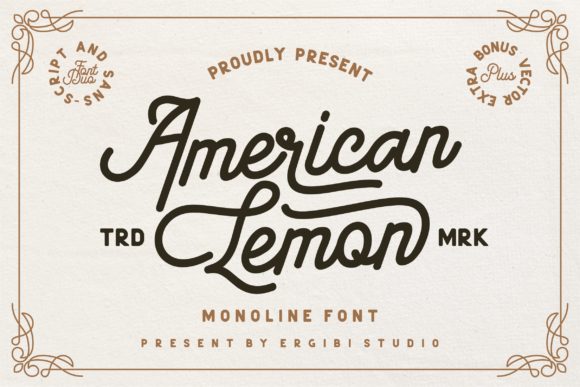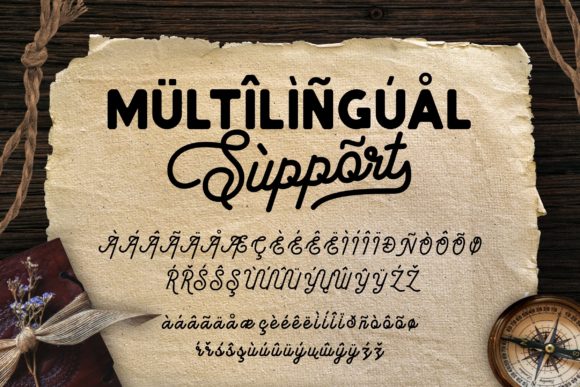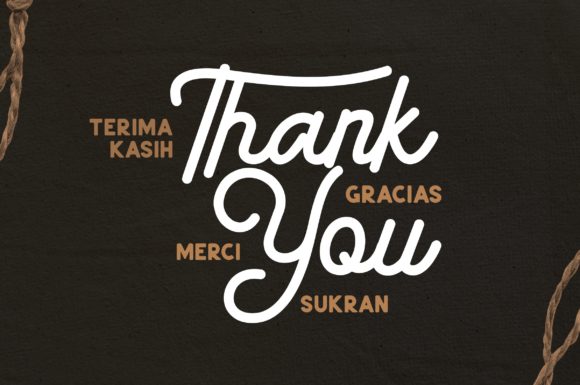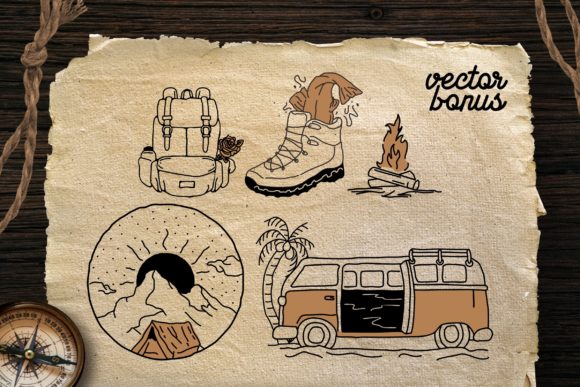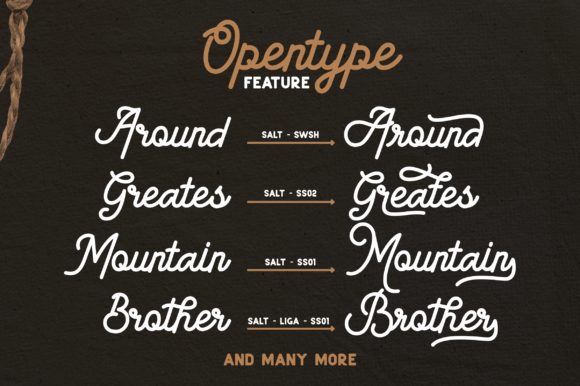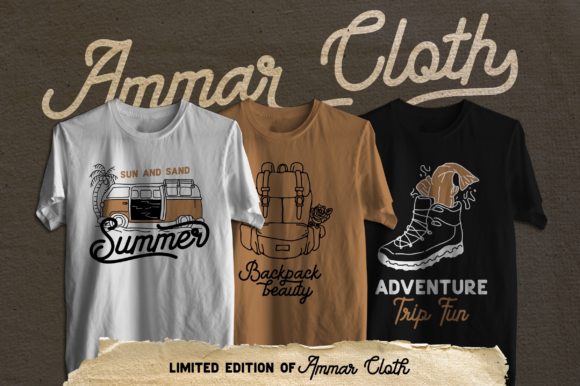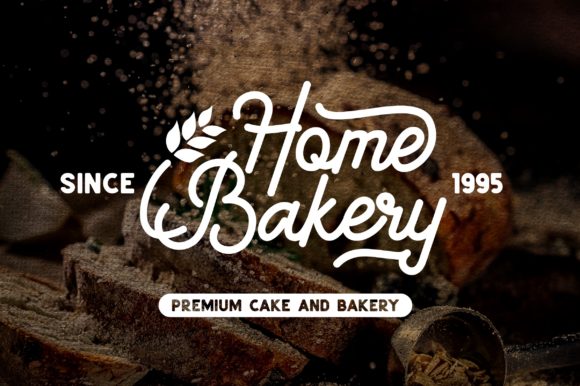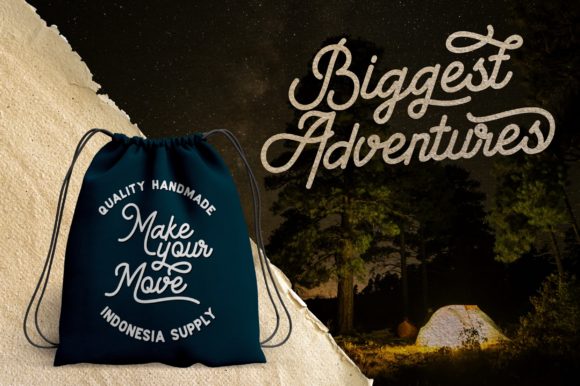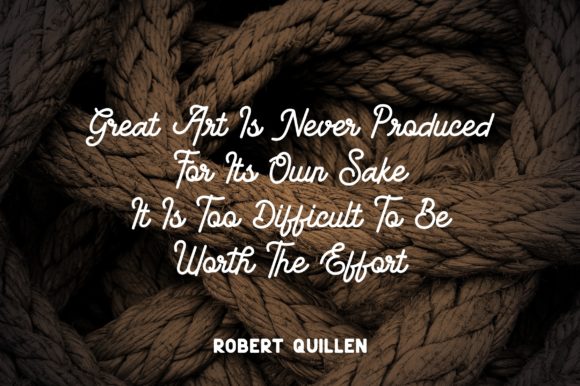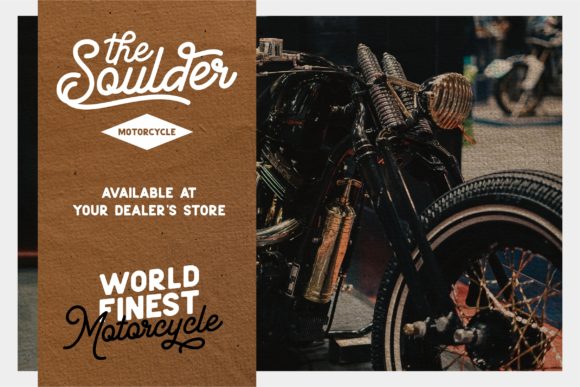
American Lemon Font
About American Lemon Font
American Lemon is an amazing vintage font duo with a beautiful feel. Together, these two fonts will turn any design idea into a stand out.